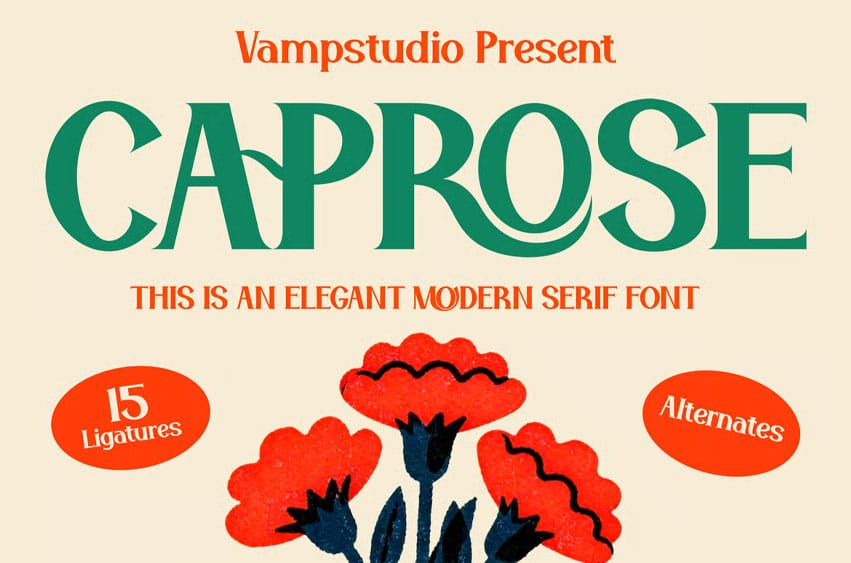
Caprose Font is a vintage decorative serif font designed for bold expressive typography. Featuring artistic curves, elegant high-contrast shapes, and retro-inspired styling, Caprose creates eye-catching headlines and premium branding visuals.
Perfect for editorial layouts, vintage posters, luxury packaging, creative branding, restaurant menus, ads campaigns, and artistic logo design.
Key Features
- Elegant dramatic letterforms
- Uppercase & lowercase
- Retro editorial style
- Great for posters & branding
- Stylish artistic aesthetic